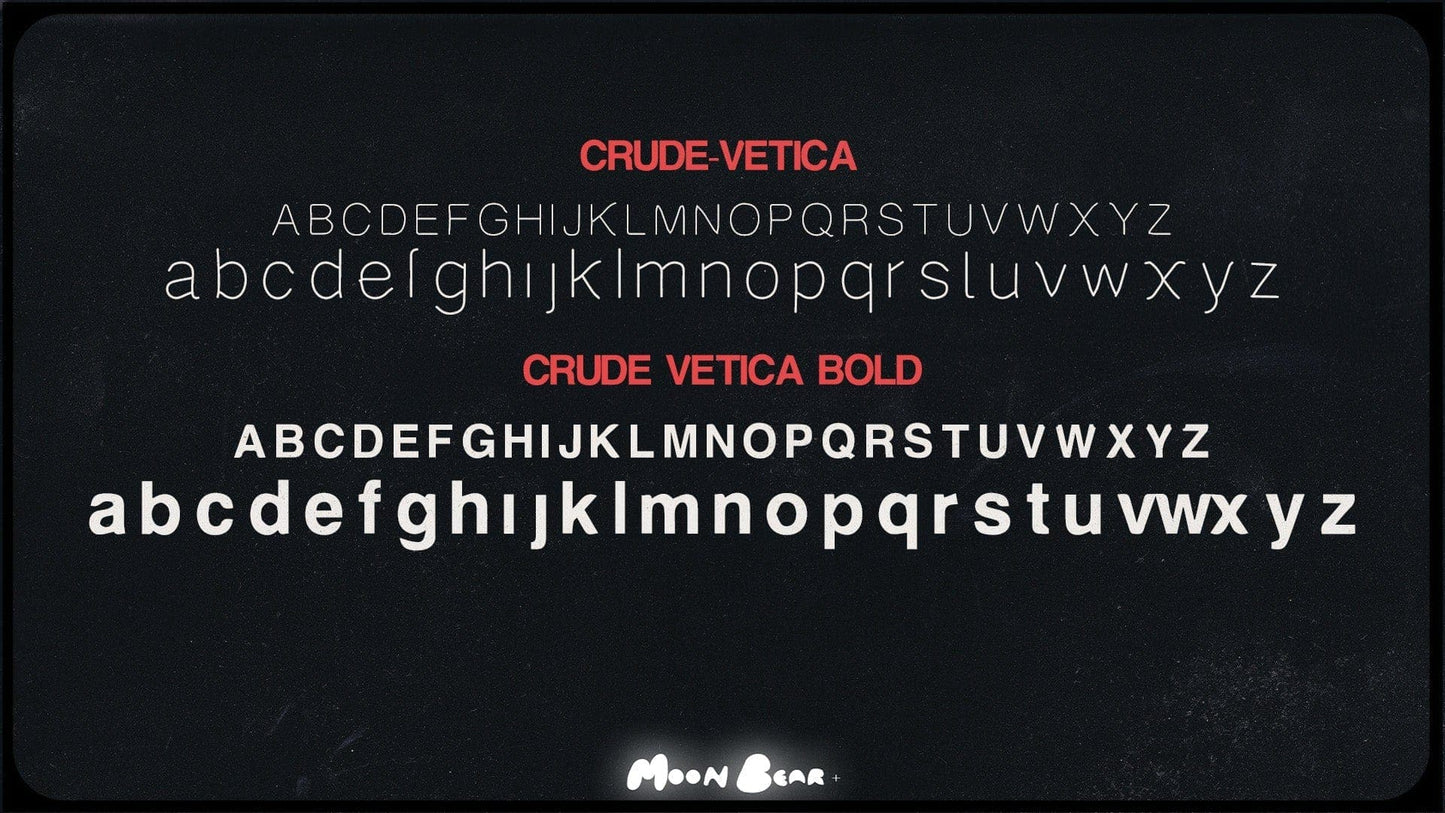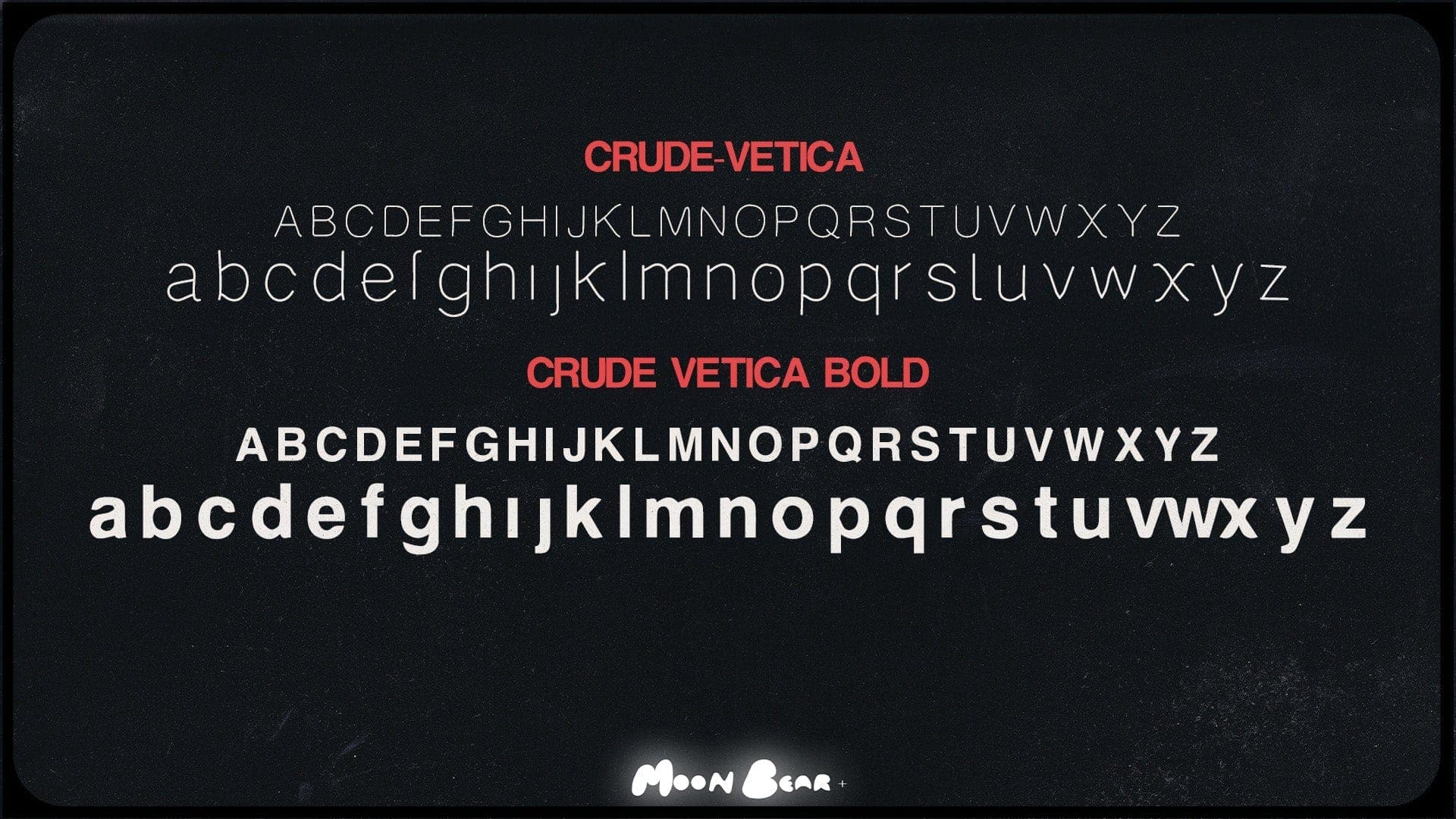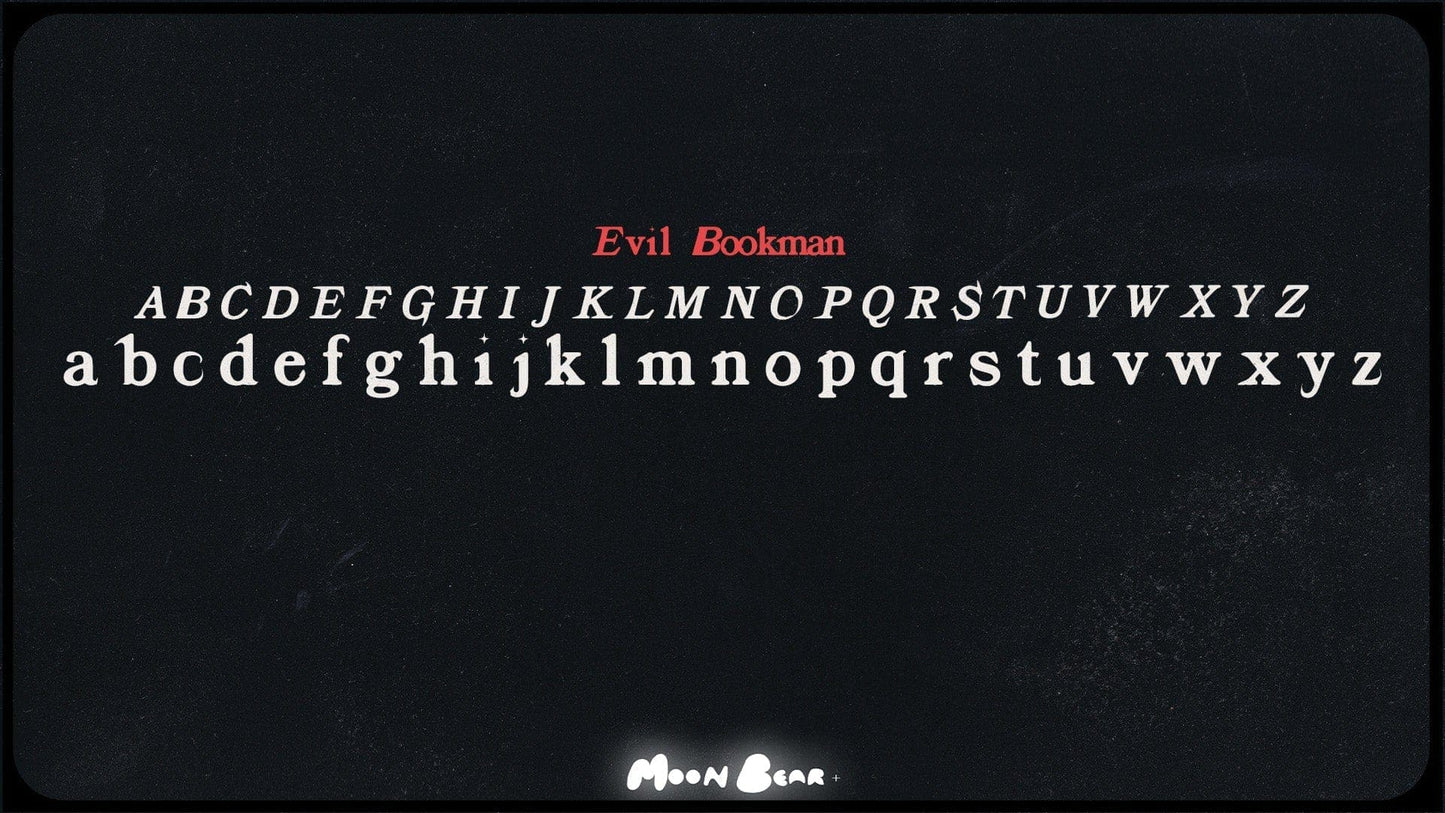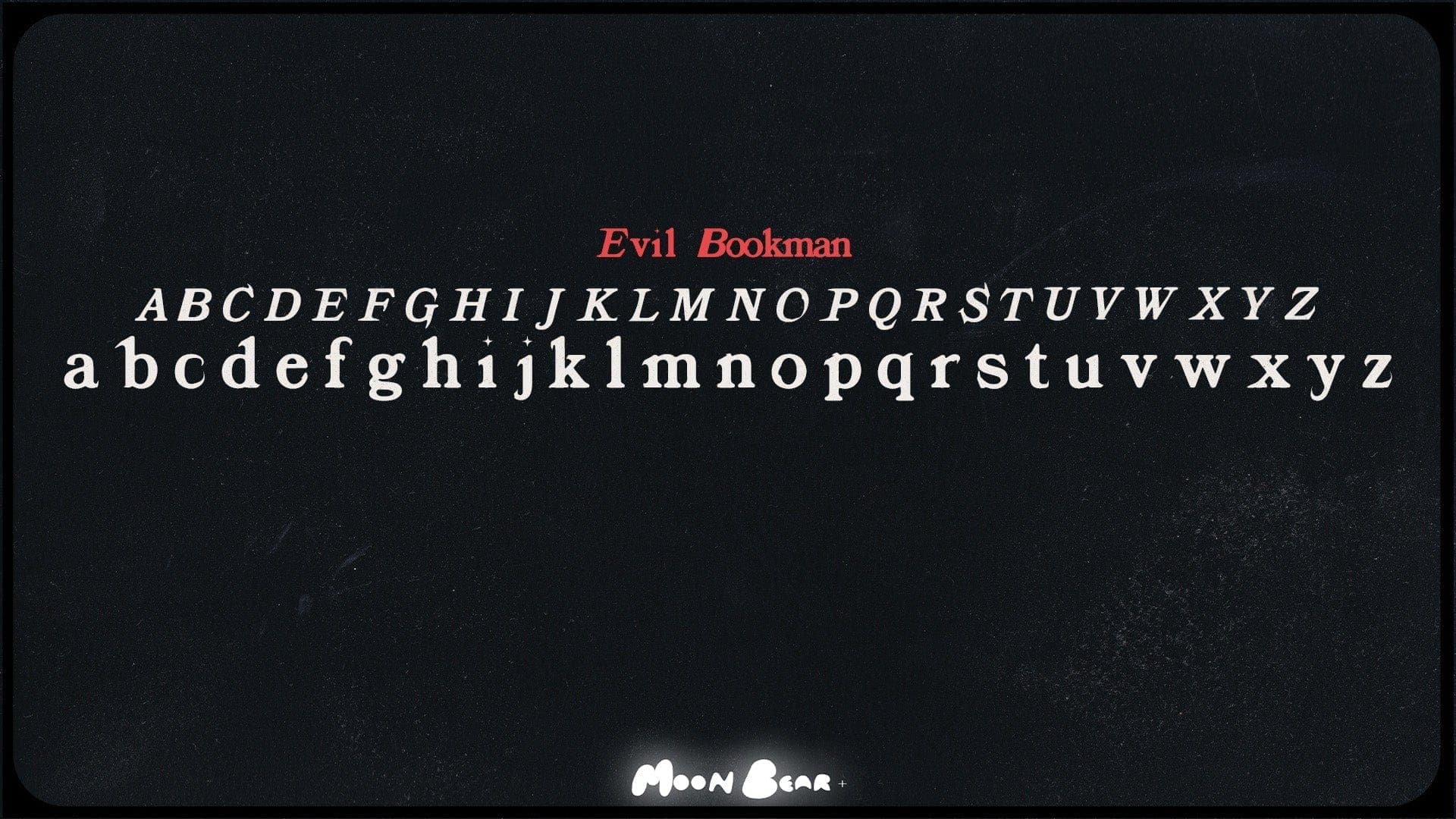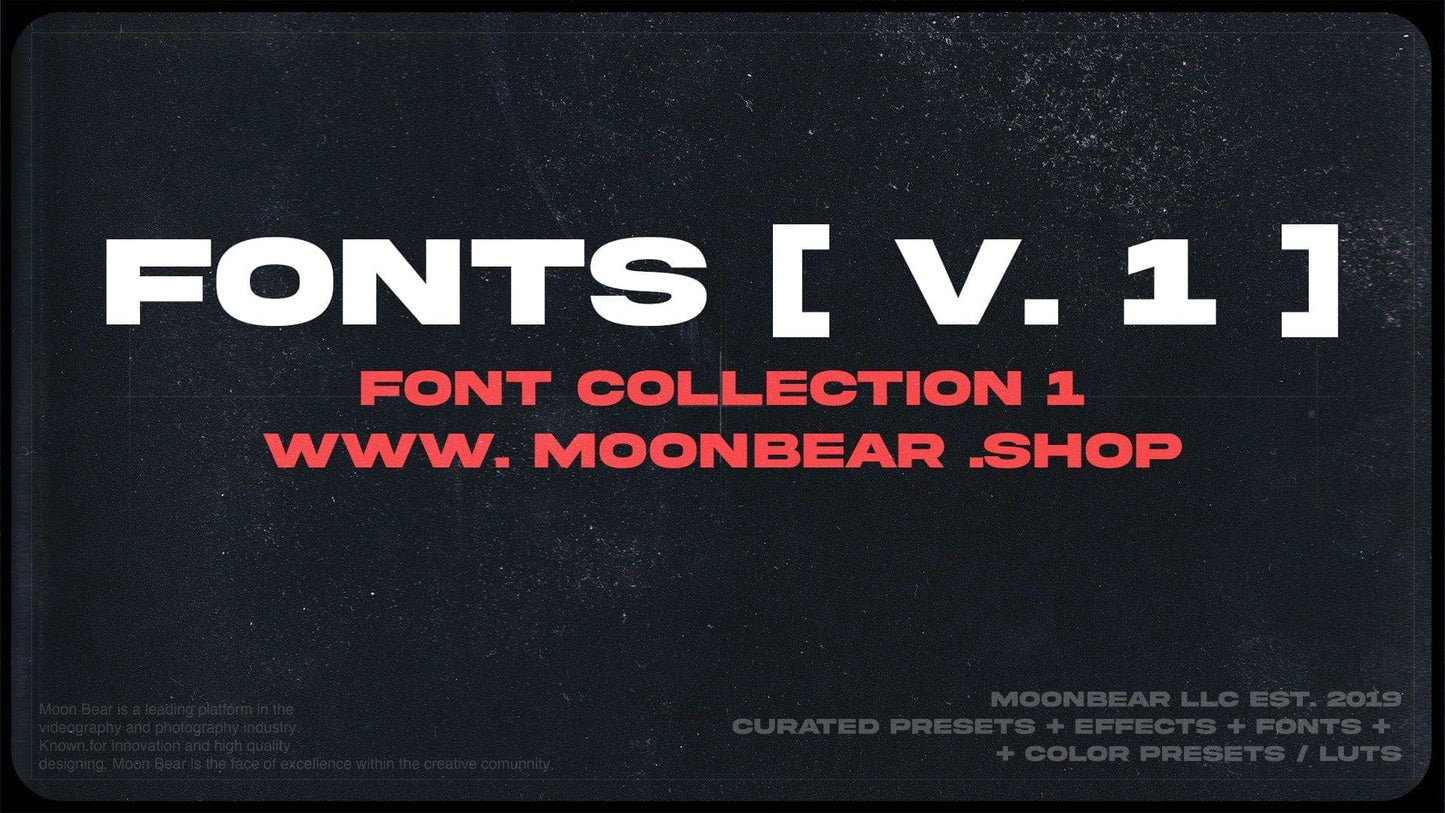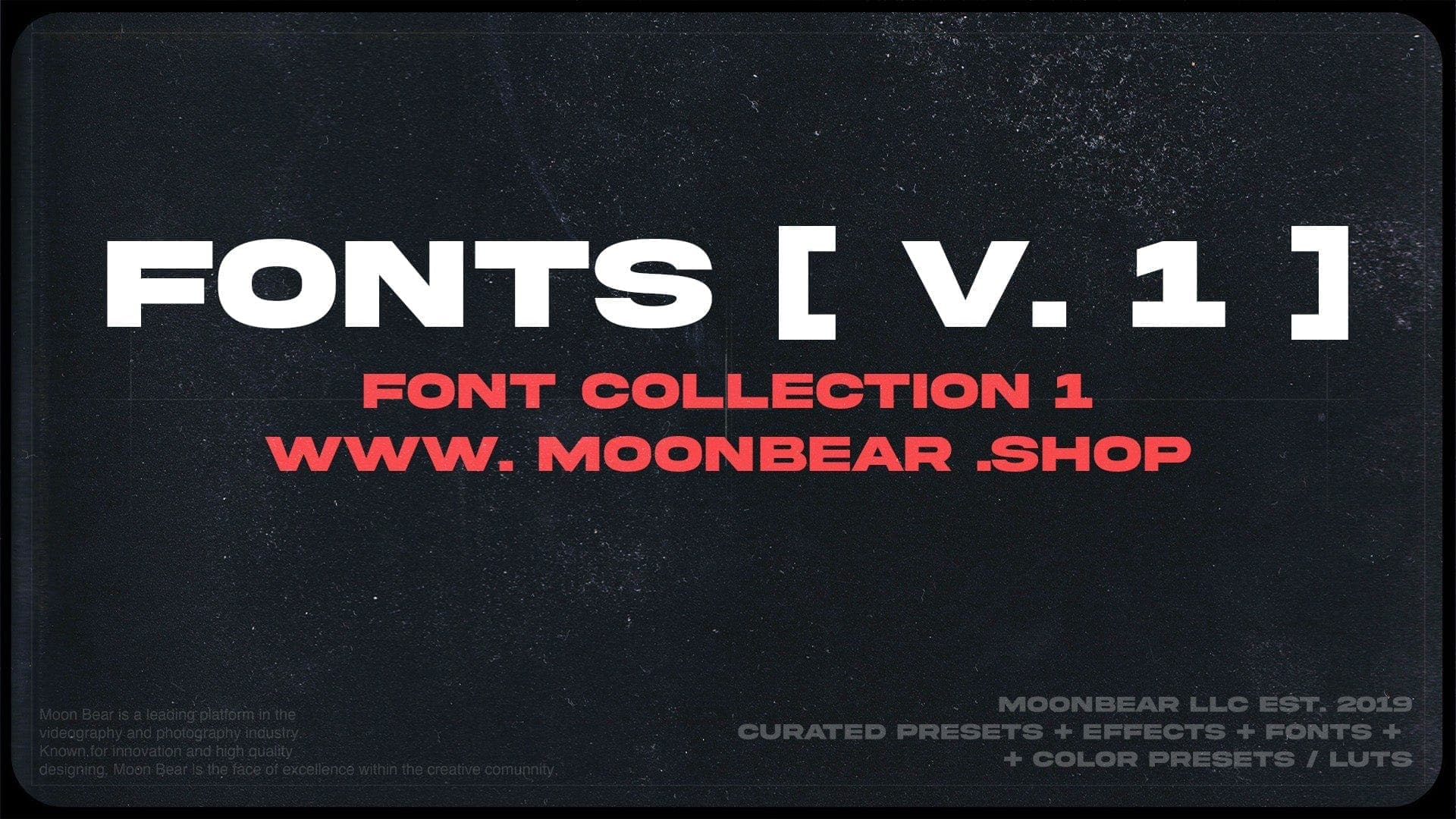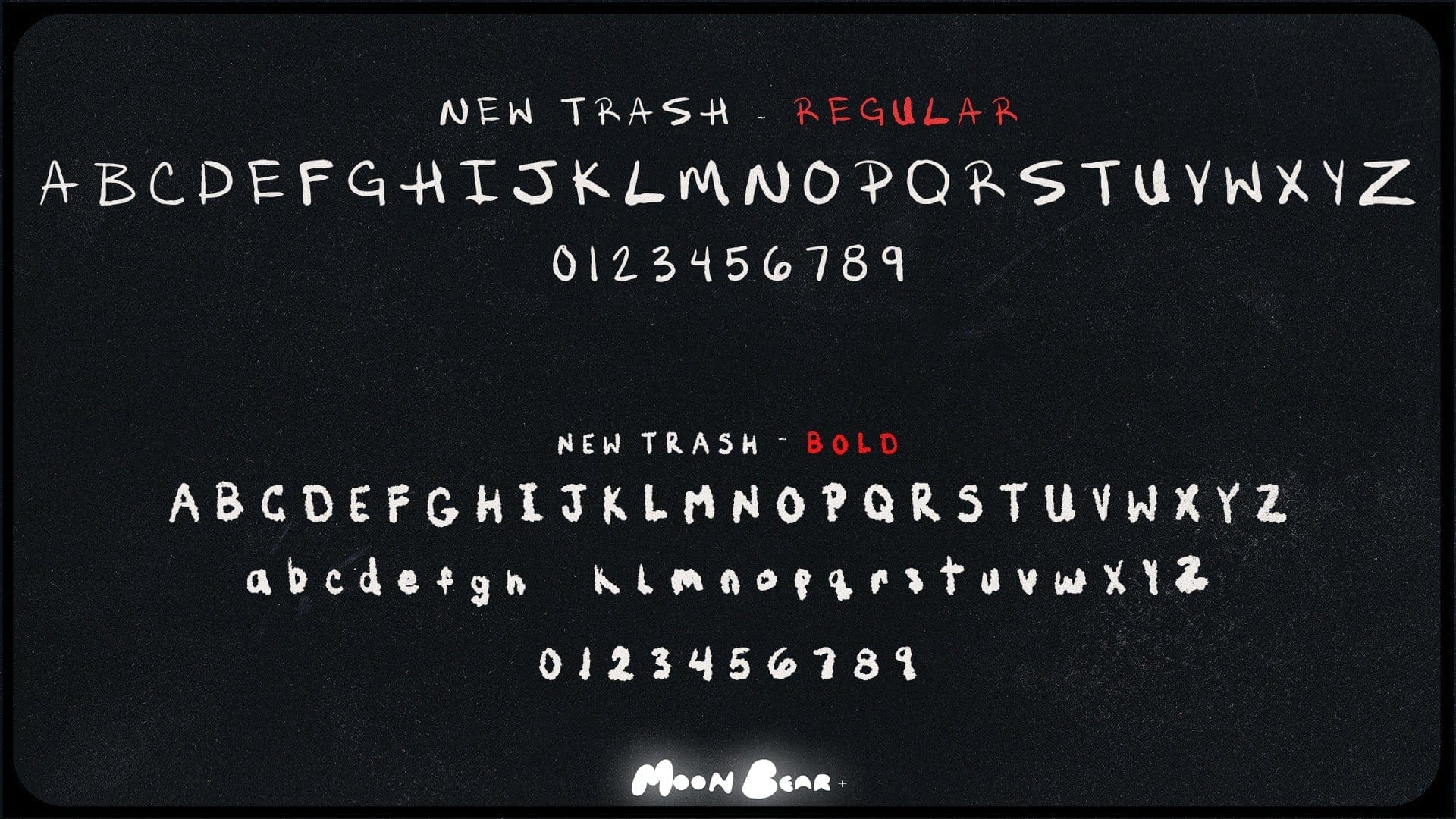
FONTS [V-1]
Our first font collection: FONTS v.1 includes 4 Custom Fonts created and licensed by Moon Bear.
MB - PRE CURSIVE
MB - EVIL BOOKMAN
MB - CRUDE VETICA REGULAR
MB - CRUDE VETICA BOLD
MB - NEW TRASH
MB - NEW TRASH BOLD
COMPLETE WITH A RAW UNFINISHED LOOK.
IN A WORLD OF DIGITAL IMAGING PERFECTION, IT'S UP TO DESIGN TO PORTRAY AUTHENTICITY. THESE FONTS WERE DESIGNED TO RESPECT YOUR CREATIVE CHOICES WHILE ADDING AN AUTHENTIC FEEL TO YOUR FILM.
DESIGNED FOR ANY PROJECT
NEW TRASH
A script font, mimicking the handwriting of @Derek.period.
PRE CURSIVE
An Alien-like display font, blending sans serif and script.
EVIL BOOKMAN
A Sinister Re-design of classic Serif book fonts.
CRUDE VETICA
A crude distorted retelling of classic Sans-Serif fonts.
FULL OF CHARACTER
These titles were created for filmmakers, font enthusiast, and designers, looking for fun alternatives to some of their favorite fonts.